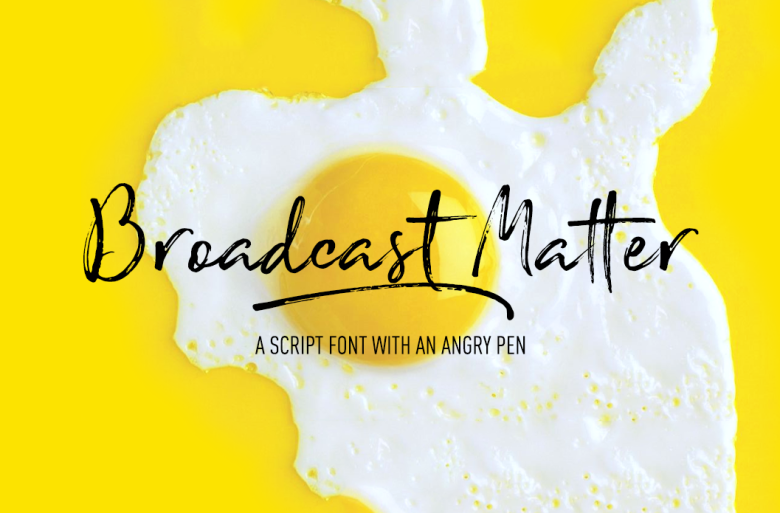
Broadcast Matter Font
Broadcast Matter is a rough script font made from a dry Zebra brush pen. The full commercial version includes a set of 7 double letters and 18 underlinings.
The full commercial version includes a set of 7 double letters and 18 underlinings to create your own style!